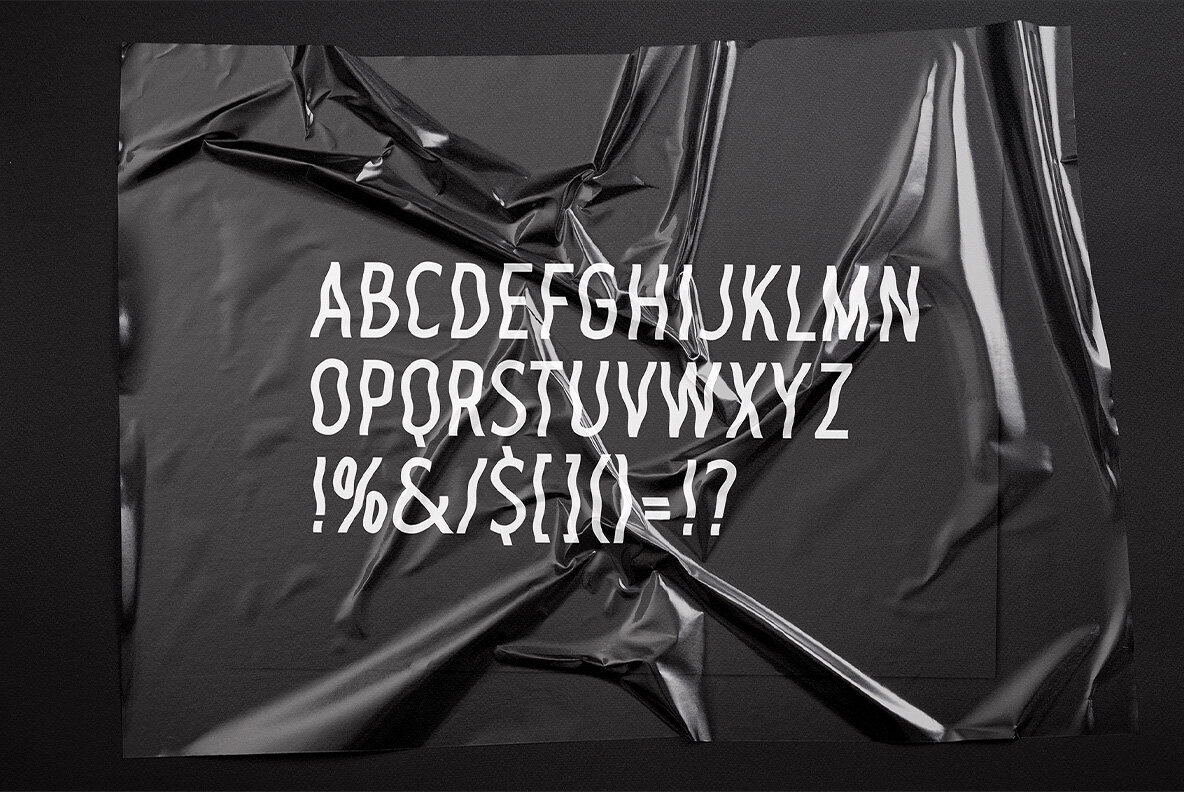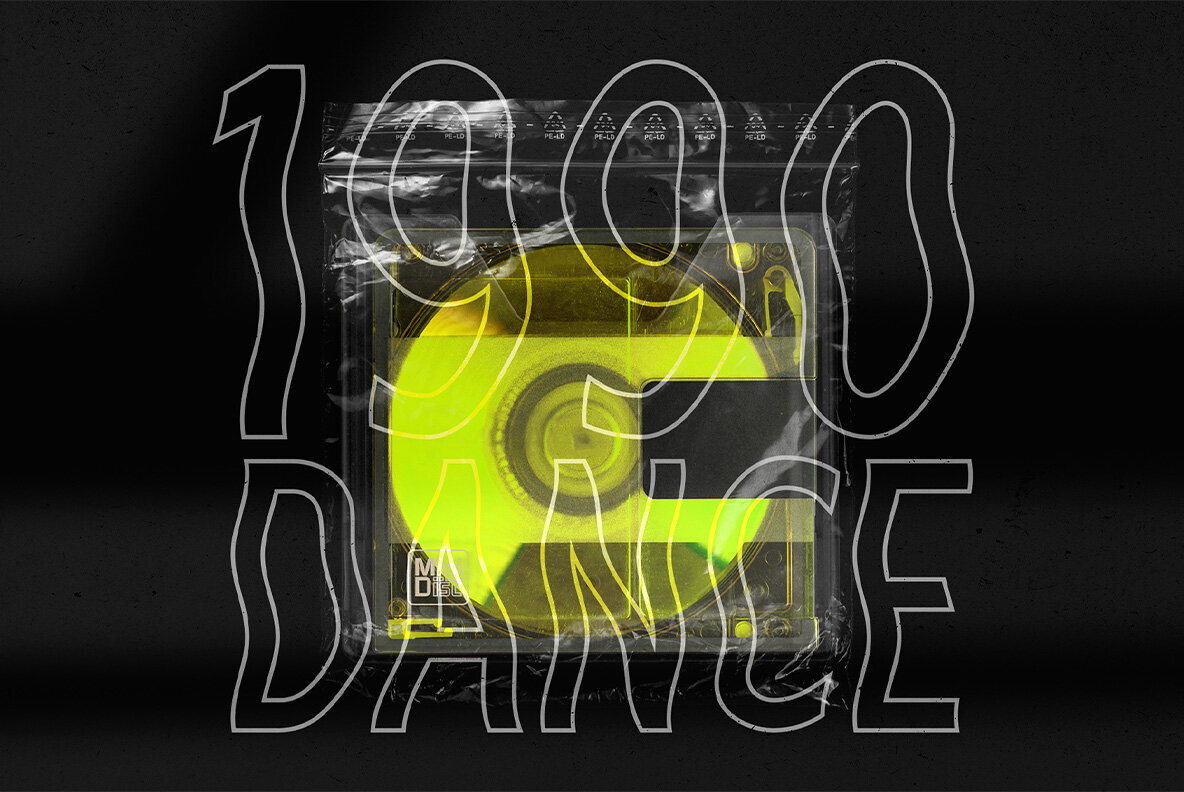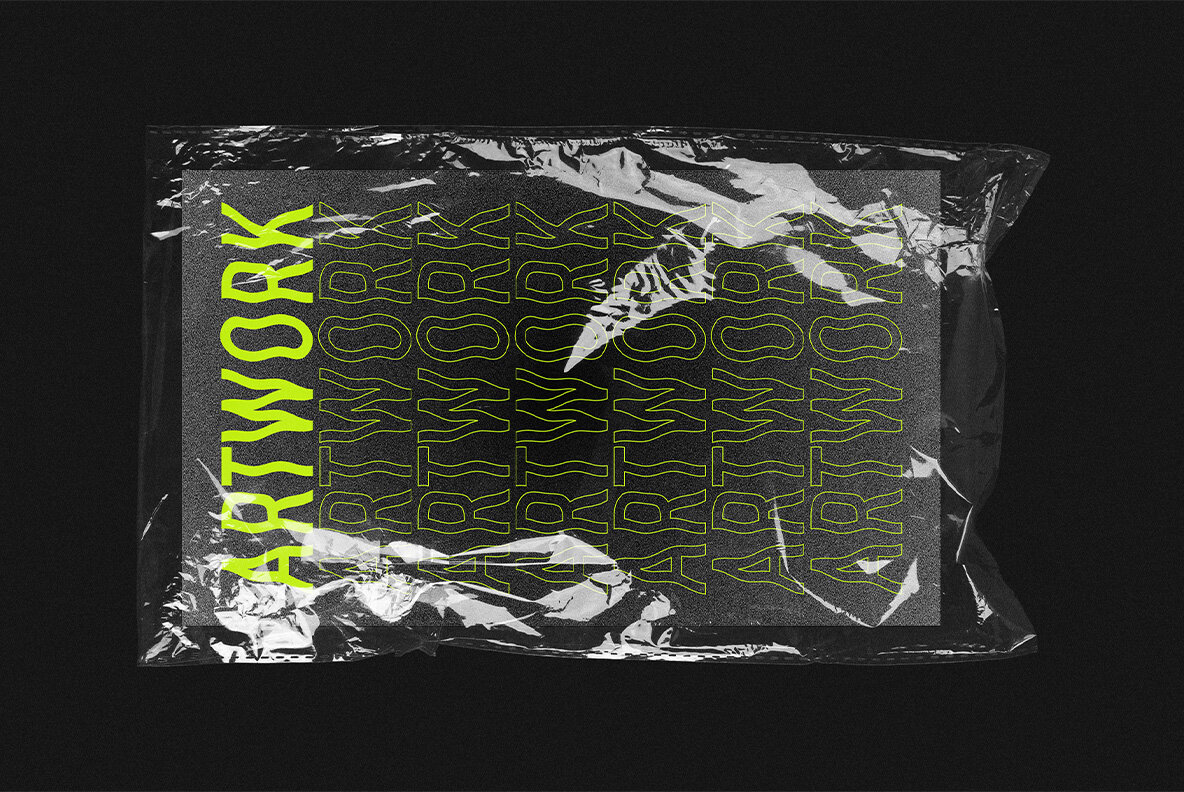
Plastic Sans Font
Introducing “Plastic Sans” – a contemporary distorted display typeface inspired by a digital glitch, designed to add a touch of creativity and abstract appeal to your next project. Each letter has been distorted with an attention to detail; full multilingual capabilities and a coverage of several languages based on the Latin alphabet completes this modern unicase font. "Plastic" is perfect to enhance any creative purpose: headlines, titles, poster, website, social media profiles and even branding.